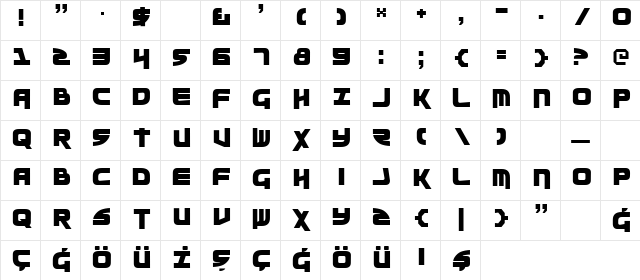
Complete PCLifeMoltors Black glyph index. Displaying only characters natively supported by PCLifeMoltors Black font.
PCLifeMoltors is a composed and adaptable typeface that performs quietly and consistently across a wide range of design contexts.